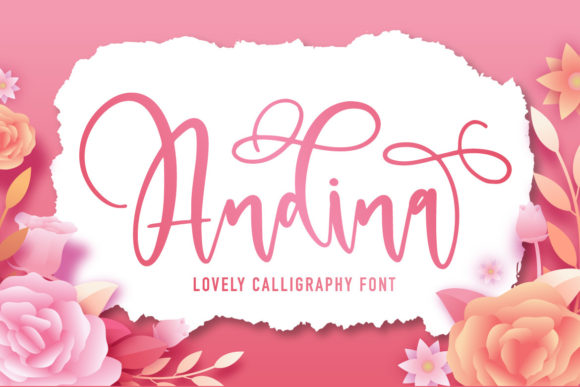
The Enchanting Andina Font: A Designer’s Delight
- ✨ The elegant and charming vibe it brings to any design
- 💕 Perfect for wedding invitations, thank you cards, quotes, greeting cards, logos, and business cards
- 🎨 Versatile and works well with a variety of design styles
While Andina Font is a stunning addition to any design, there are a few things to keep in mind: 🤔
- ⚠️ Some users may find the font a bit too delicate for certain design projects
- ⚠️ May require some experimentation to get the perfect combination of glyphs and swashes
The Designer Inspiration Behind Andina Font
Andina Font was inspired by the beauty of handwritten scripts and the elegance of traditional calligraphy. Its creator aimed to craft a font that would bring a touch of sophistication and charm to any design project. 💫
Q: Is Andina Font suitable for body text?
While Andina Font is stunning, it’s best suited for display text or short paragraphs. Its delicate nature may not be ideal for long blocks of body text. 📄